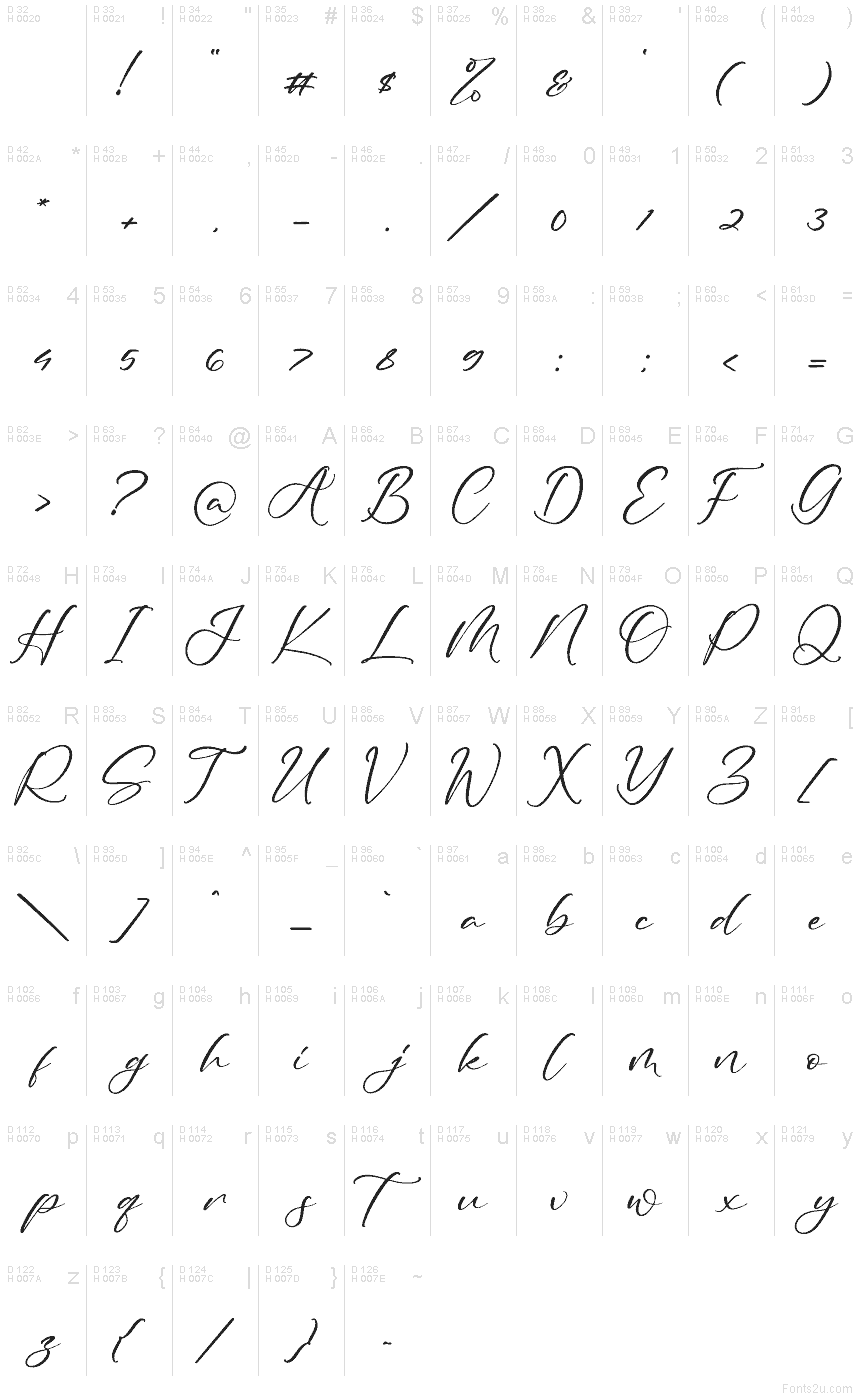
Santiago Pictures
Santiago Pictures font by Letterena Studios is a free modern calligraphy script font. Its windswept strokes, airy spacing, and inky contrast feel like a handwritten signature caught mid-motion-elegant without getting fussy. The gentle bounce and graceful loops bring romance and warmth, giving names, headlines, and short phrases that coveted “crafted” look right out of the box.
Using Santiago Pictures, you’ll shine on wedding invitations, photography watermarks, boutique logos, beauty packaging, save‑the‑date cards, and social posts. This free font reads best when set larger with generous line spacing. For balance, pair its flowing script with a clean geometric sans for details or captions; the contrast keeps your layout crisp while the lettering does the storytelling.